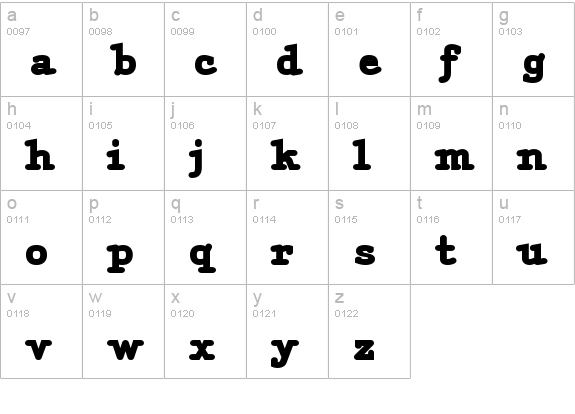
AmintaBlack Font Details
AmintaBlack is a stunning display font that exudes elegance and sophistication. Its bold and stylish design makes it perfect for creating eye-catching headlines, posters, logos, and more. The sleek curves and sharp lines of this typeface give it a modern and luxurious feel that is sure to elevate any design project. What sets AmintaBlack apart is not only its striking aesthetics but also its versatility. Whether you're designing for a fashion brand, a high-end event, or a luxury product, this font will add a touch of class and sophistication to your work. And the best part? AmintaBlack is available for free download at FontsMarket.com. Now you can easily access this premium font without breaking the bank. So why wait? Download AmintaBlack today and take your designs to the next level!